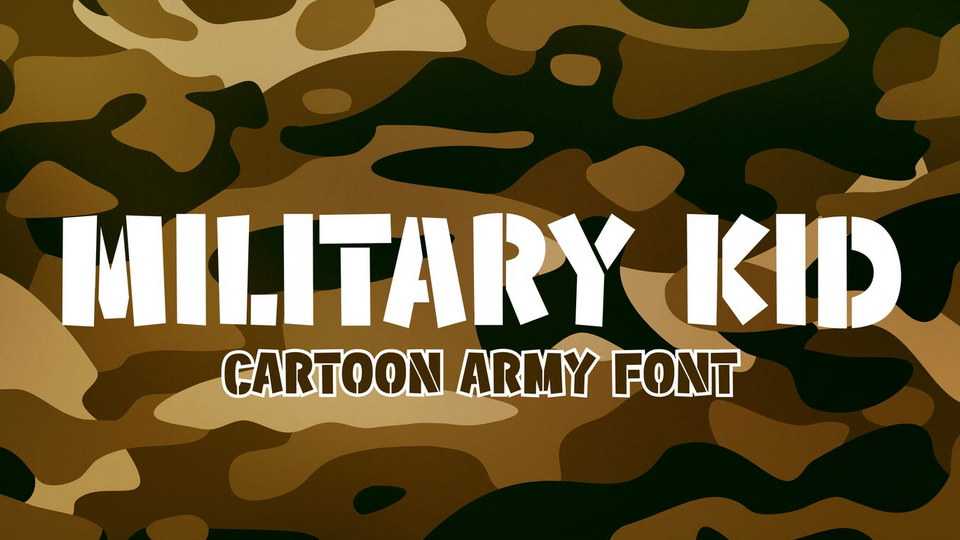
Download Military Kid font, an army kids typeface. A strong stencil cutout font that emphasizes the military shape you took. With a bit bouncy baseline and skew shape, it does add some childish feel to it.